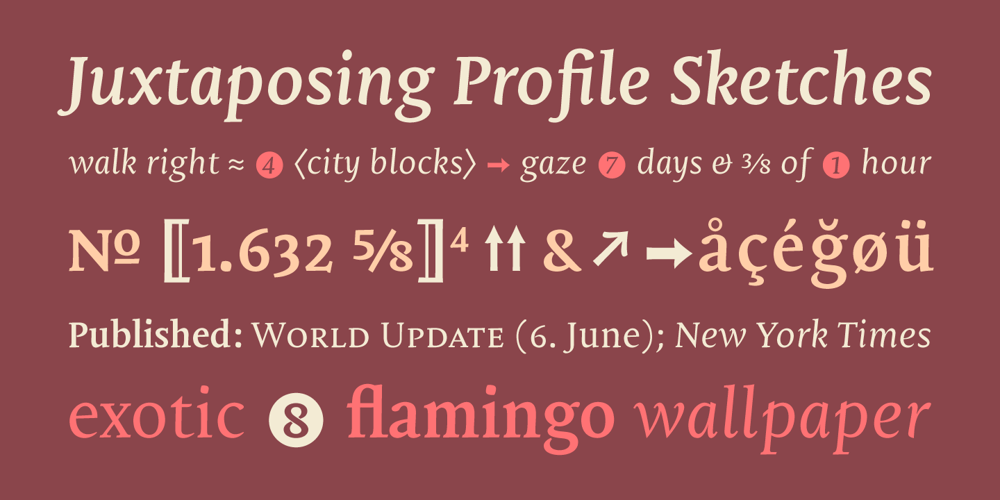
Mantika Book Font Family was designed by Jürgen Weltin and published by Linotype. Mantika Book contains 4 styles and family package options. Mantika Book was originally conceived and drawn parallel to the first Agilita drawings. *[images: pencil drawings] It took several years before having a chance looking at these designs again. But then, my first impulse was to turn this alphabet into a new sanserif, which was to become Mantika Sans. This was the starting point to conceive a super family consisting of different design styles and corresponding weights. The initial drawings of Mantika Book were refined and an Italic was developed to go with it. The aim was to create a modern serif typeface which is reminiscent of humanistic Renaissance typefaces, yet without following a particular historic model. Its large x-height for one is far away from original Renaissance models. Mantika Book was designed as a companion serif typeface to Mantika Sans that can be set for lengthy texts as in books, hence its name. It shares the same x-height with Mantika Sans but has longer ascenders and descenders, making for better word shapes in long, continuous reading. The approach of an ›old-style‹ looking typeface with large minuscules makes Mantika Book also a choice for magazine text settings where one often needs smaller point sizes to fit in a multiple columns layout. The unique details of Mantika Book are the asymetric bracketed serifs in the upright font and its higher stroke contrast than usual in a Renaissance style. The stems are slightly curved inwards. Also, the Italics have a low degree of inclination, which makes longer passages of text set in Italic rather pleasing to read. Another feature Mantika Book shares with Mantika Sans is that all four weights take up the same line length. It covers all European languages plus Cyrillic and Greek, is equipped with lots of useful scientific symbols [double square brackets, angle brackets, empty set, arrows] and the regular weight has small caps. There is a kind of an old-style feeling to Mantika Book, yet these citations were turned into a contemporary serif typeface with a soft but sturdy character.